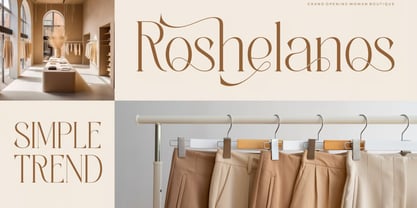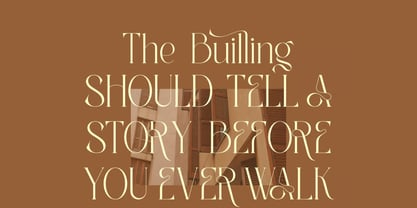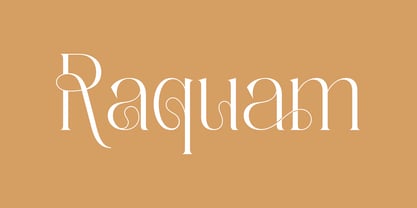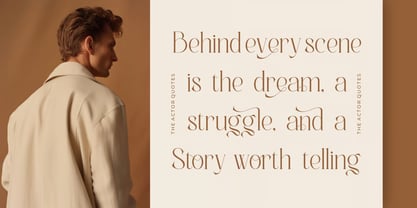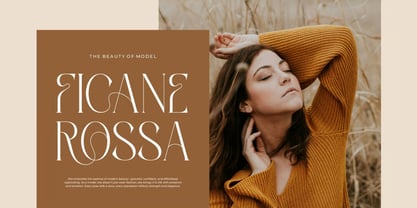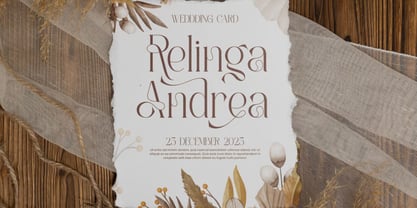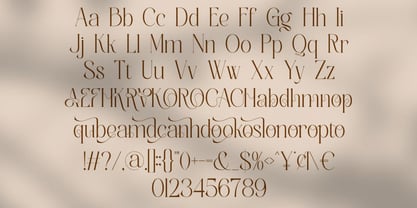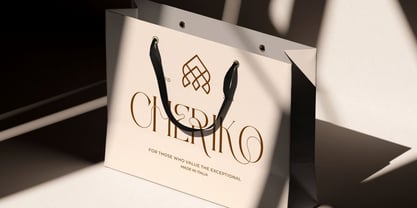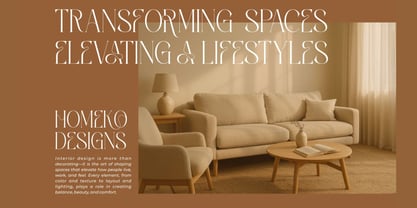
Raquam
Raquam is a modern and classy serif font designed to bring sophistication, elegance, and premium style to your creative projects. Featuring beautifully crafted letterforms, stylish ligatures, and unique alternates, Raquam offers a luxurious typographic experience that enhances branding, logo design, editorial layouts, and high-end visual identities.
With its smooth serif structure and refined details, Raquam strikes the perfect balance between modern minimalism and timeless elegance. Whether you're creating a luxury brand, designing wedding invitations, crafting book covers, or producing eye-catching marketing materials, this versatile typeface delivers outstanding results with effortless charm.
Its graceful character and professional appearance make Raquam an excellent choice for designers looking to create memorable and sophisticated typography that stands out across both print and digital media.
Key Features:
• Modern Classy Serif Design: Elegant letterforms with a refined contemporary aesthetic.
• Beautiful Ligatures: Smooth and stylish character connections for premium typography.
• Creative Alternates: Unique alternate characters for customized and distinctive designs.
• Uppercase & Lowercase Letters: Complete alphabet for versatile design applications.
• Numbers & Punctuation: Essential characters for professional and creative projects.
• Luxury-Inspired Typography: Perfect for sophisticated branding and editorial work.
• High-Quality Letterforms: Carefully crafted for exceptional visual appeal and readability.
Perfect For:
• Branding & Logo Design: Create elegant and memorable brand identities.
• Luxury & Fashion Projects: Ideal for premium products and upscale businesses.
• Invitation & Wedding Designs: Add beauty and sophistication to special occasions.
• Book Covers & Editorial Layouts: Perfect for magazines, novels, and publishing projects.
• Movie Titles & Posters: Create captivating and stylish display typography.
• Business Cards & Corporate Branding: Enhance professionalism and brand recognition.
• Packaging & Product Labels: Excellent for beauty, fashion, lifestyle, and luxury products.
• Social Media & Advertising: Design visually striking promotional content.
Elevate your typography with Raquam—a modern and classy serif font featuring elegant ligatures and creative alternates. Perfect for branding, logos, invitations, packaging, editorials, and luxury design projects, Raquam delivers timeless sophistication with a contemporary edge.